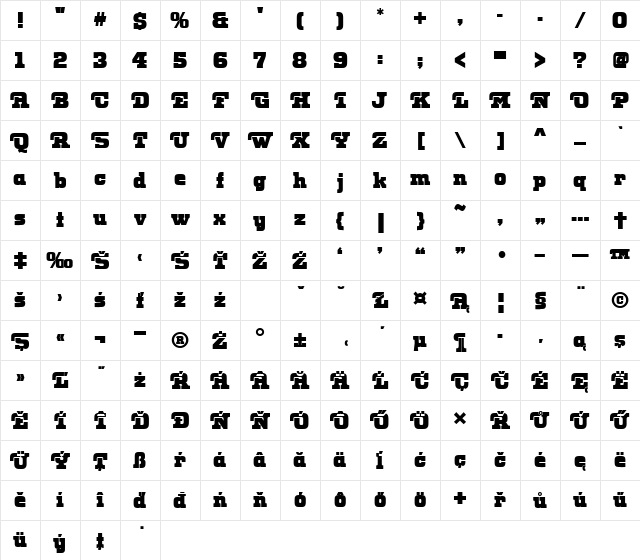
OdinPEE Regular
OdinPEE Family
Design Context for OdinPEE
OdinPEE is a composed and adaptable typeface that performs quietly and consistently across a wide range of design contexts.